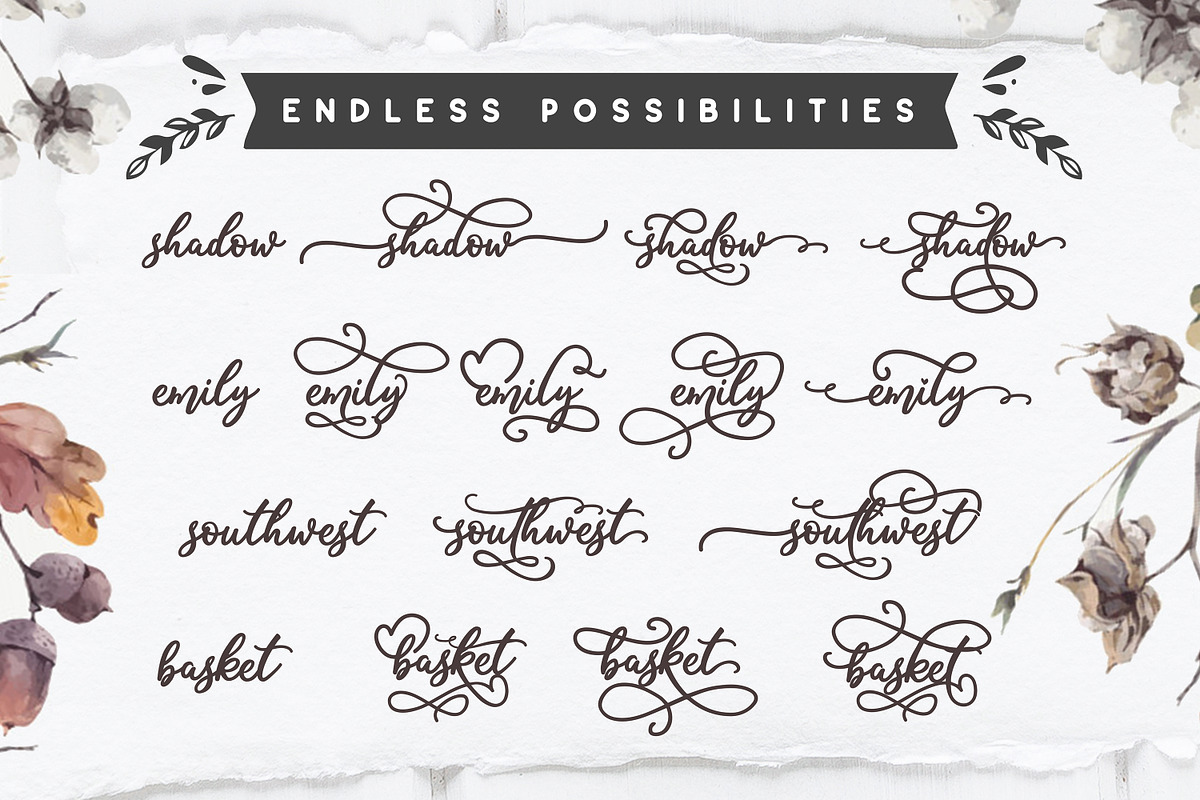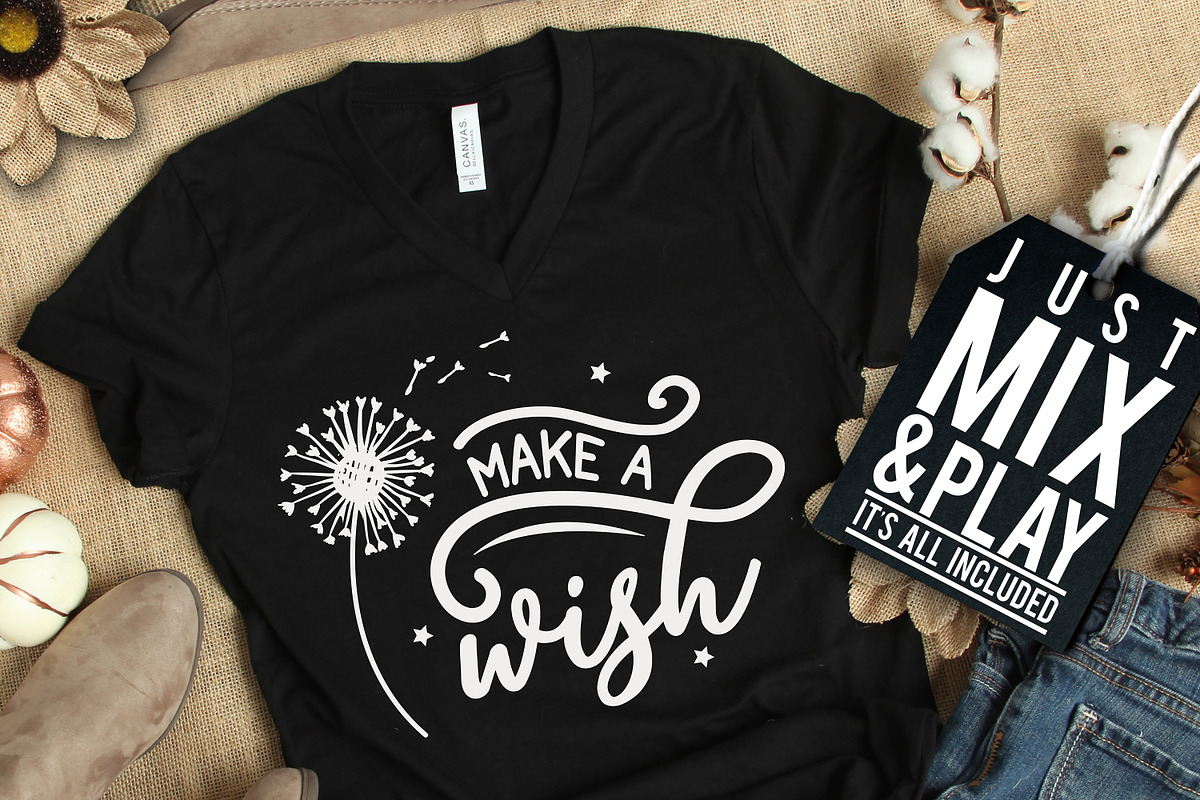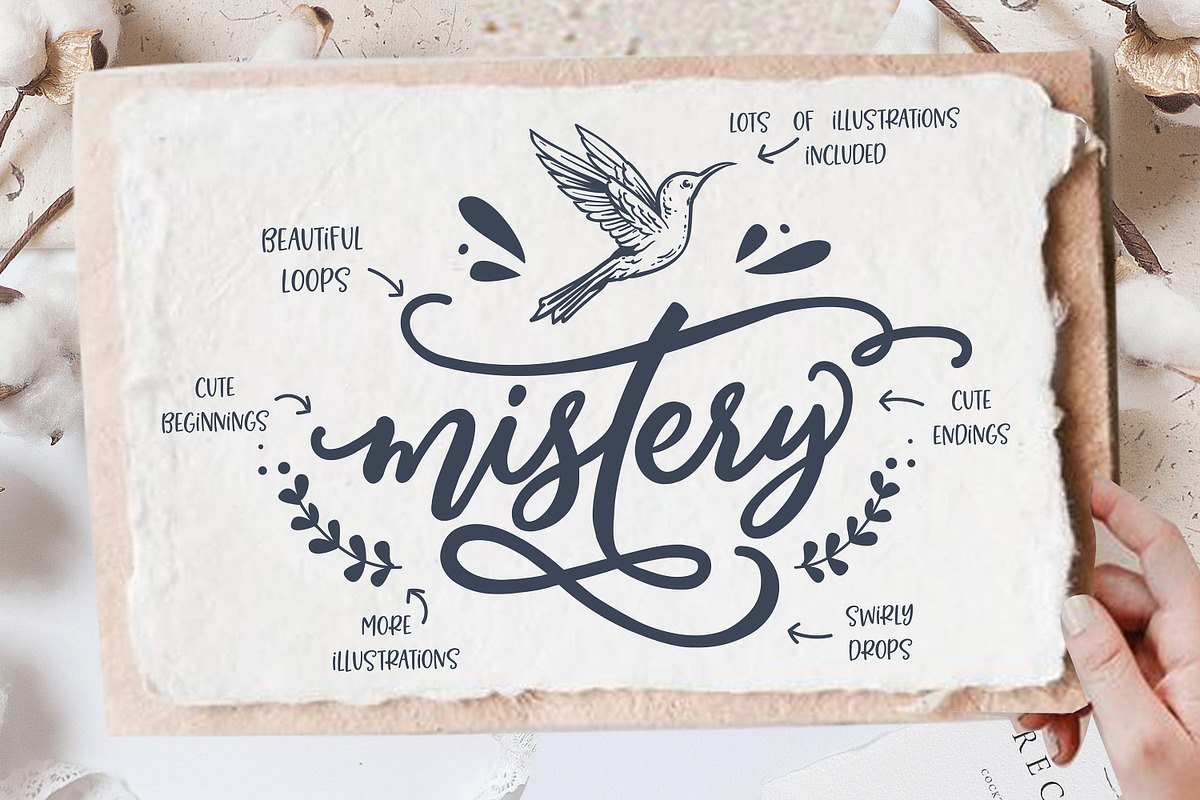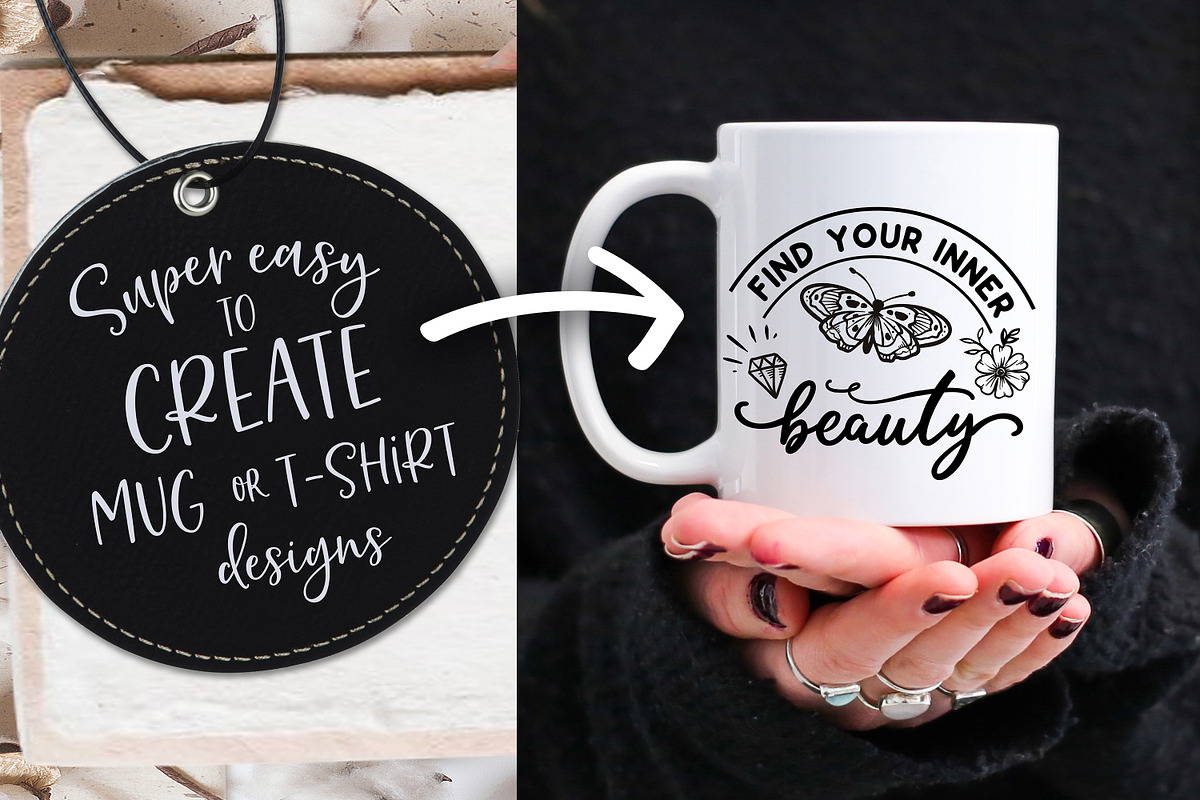
Biosha Font trio and extras
Biosha is a script font with lots of alternative glyphs plus two complementary fonts and lots of cliparts in font format as well as EPS, PNG and SVG.
The best tool if you want to create t-shirt designs, mug designs, or just play around.